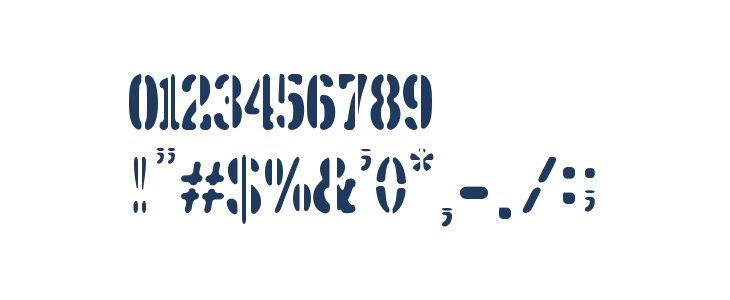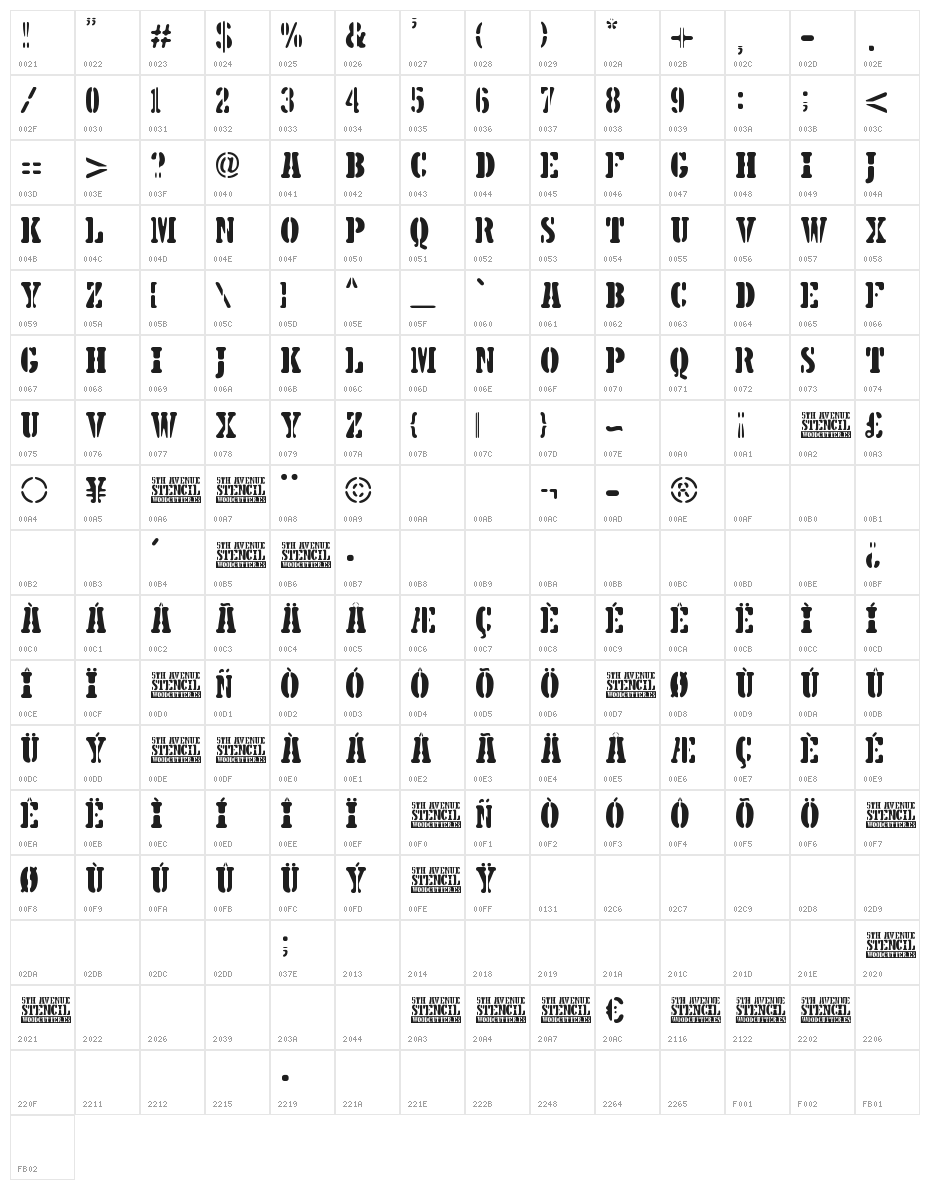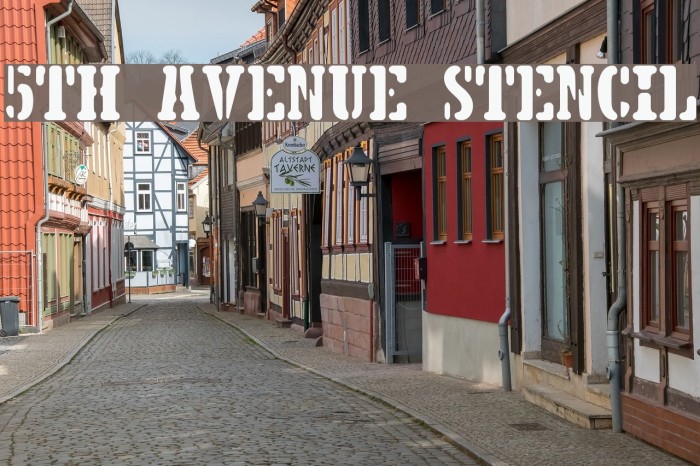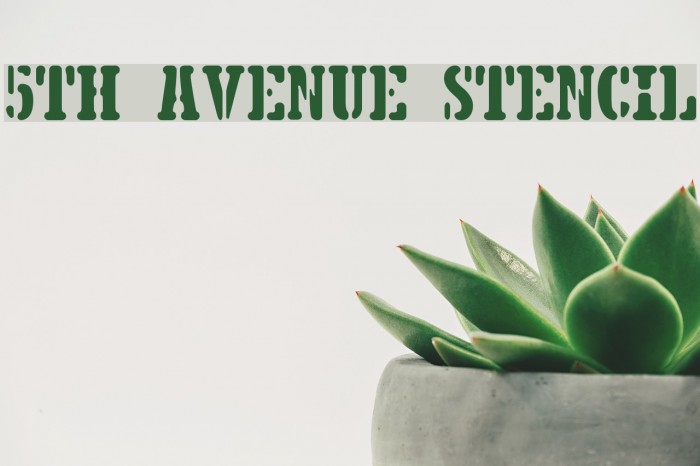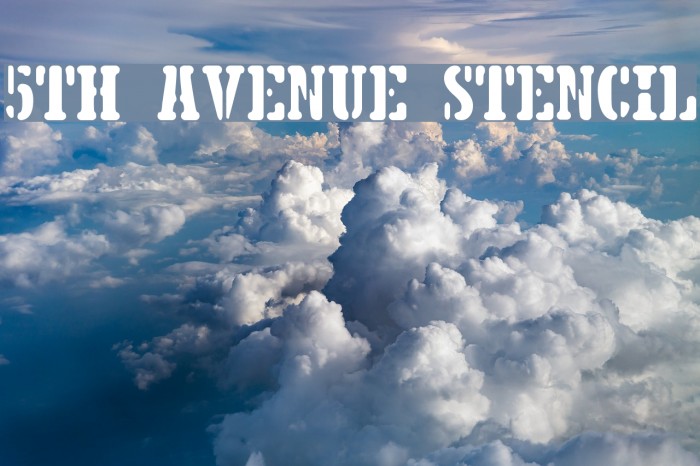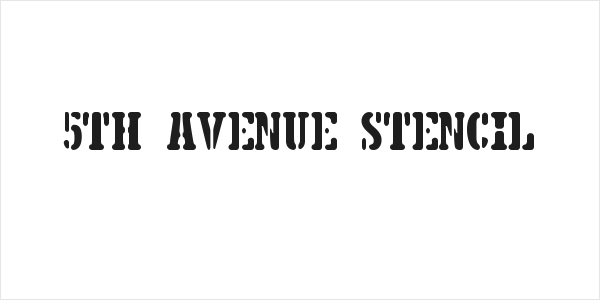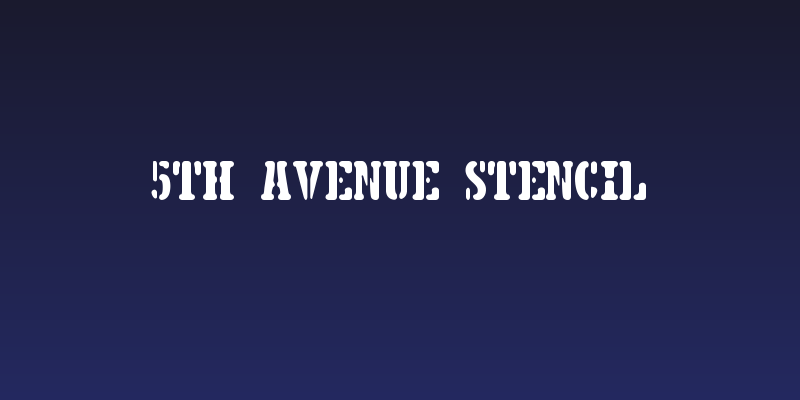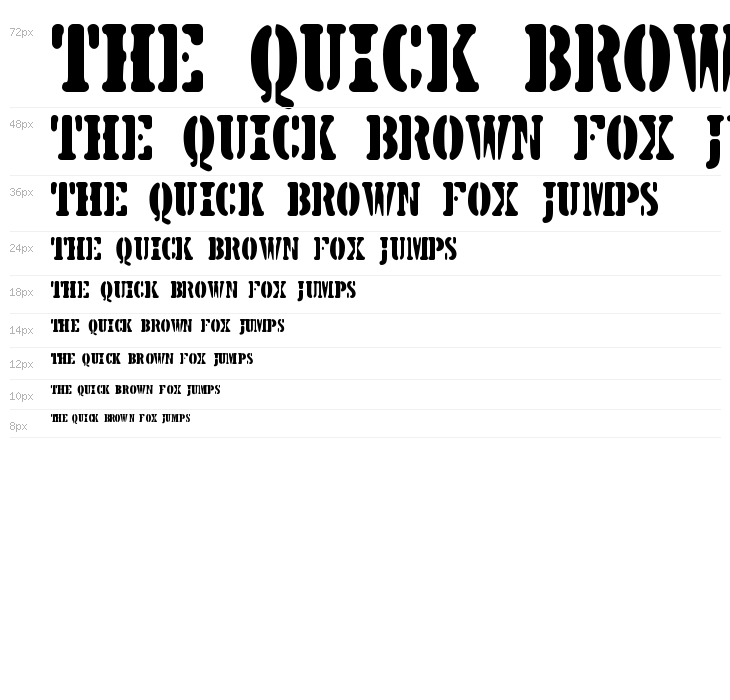
5TH AVENUE STENCIL Font
5TH AVENUE STENCIL Description
This font features a bold, stencil-like design with distinct cut-out sections in each character, creating a rugged and industrial appearance. The uppercase letters are prominent and commanding, making them ideal for attention-grabbing headlines. The numbers and special characters maintain the same boldness and stencil style, ensuring consistency across all elements. The font's design is reminiscent of military or industrial signage, characterized by its strong, geometric shapes and high legibility. The spacing between characters is relatively tight, which enhances its compact and impactful look.
Overall StyleIndustrial, Rugged
Use CaseHeadlines, Logos, Signage
Proposed ProjectsIdeal for military-themed designs, industrial branding, posters, and signage.